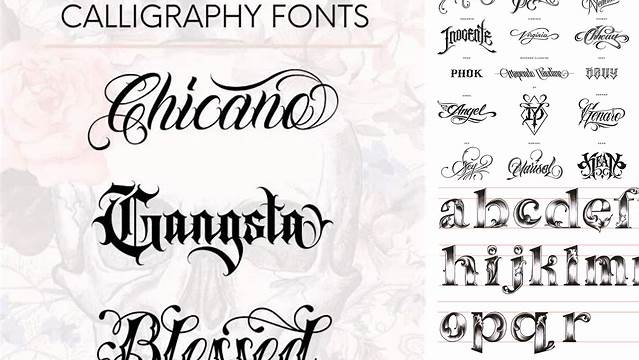
Tattoo Fonts: A Guide To Unique Lettering Styles
Hey guys! Getting a tattoo is a big decision, and choosing the right font is just as important as the design itself. The font you pick can totally change the vibe of your tattoo, so let’s dive into the awesome world of tattoo fonts and explore the different styles you can use to make your ink truly unique. Whether you're into classic scripts, bold statements, or something totally out-there, this guide will help you find the perfect lettering for your next piece of body art. Let’s get started!
Why Tattoo Fonts Matter
When we talk about tattoo fonts, we're not just discussing how the letters look; we're delving into the very essence of how your message is conveyed. Think of it this way: the words you choose are the heart of your tattoo, but the font is the voice in which those words are spoken. A delicate script font might whisper elegance and grace, while a bold, gothic typeface could shout strength and defiance. The font is the unsung hero, adding layers of meaning and emotion to your tattoo. So, why do tattoo fonts matter so much? They're the key to making your ink truly speak your language.
Choosing the right tattoo font is crucial because it dramatically affects the overall impact and readability of your design. Imagine having a powerful message rendered in a font that's too dainty or illegible – the impact is lost, right? Similarly, a meaningful quote in a generic, overused font might not stand out as much as it should. The right font enhances the message, making it visually appealing and easy to read. Think about it: you want people to be able to appreciate your tattoo from a distance and up close, and the font plays a massive role in achieving that. A well-chosen font ensures your tattoo remains timeless and impactful, truly reflecting your personality and style.
Furthermore, different tattoo fonts evoke different emotions and associations. A classic script font, like a flowing cursive, often brings to mind elegance, romance, and tradition. These fonts are perfect for quotes, names, or dates where you want to add a touch of sophistication. On the other hand, bold, blocky fonts can convey strength, stability, and a no-nonsense attitude. These are ideal for impactful words or phrases that you want to stand out. Then there are the more artistic fonts, like those inspired by calligraphy or graffiti, which can add a unique and edgy touch. The font you select becomes a visual cue to the viewer, setting the tone and mood of your tattoo. It’s not just about what the tattoo says; it’s about how it says it. Ultimately, the font acts as a visual amplifier, ensuring your tattoo communicates exactly what you intend.
Popular Tattoo Font Styles
Okay, let's get into the exciting part – the fonts themselves! There's a massive range of tattoo font styles out there, each with its own unique vibe and history. Knowing the popular styles can help you narrow down your choices and find something that perfectly matches your personality and the message you want to convey. Whether you're into the classics or something more modern and edgy, we've got you covered.
Script Fonts
First up, we have script fonts. These are your elegant, flowing fonts, often resembling handwriting or calligraphy. They're super popular for tattoos because they add a touch of sophistication and grace. Think swirling lines, elegant loops, and a generally fancy feel. Script fonts are perfect for names, quotes, or anything where you want to convey a sense of timeless beauty. Script fonts can range from very ornate and decorative to more simple and clean, giving you plenty of options to play with.
Within the script category, there are sub-styles like cursive, Spencerian, and Old English scripts. Cursive fonts are your everyday handwriting styles, easy to read and effortlessly stylish. Spencerian scripts are more elaborate, with flourishes and intricate details, often used for a vintage or formal look. Old English scripts, with their bold, dramatic strokes, bring a classic, almost medieval feel. When choosing a script font, consider how easily it can be read and how well it will hold up over time. Too many fine details can blur as the tattoo ages, so sometimes simpler is better. But when done right, a script font can be an absolutely stunning addition to your ink.
Gothic Fonts
Next, let's talk about gothic fonts. These fonts are bold, dramatic, and a little bit edgy. Gothic fonts often feature sharp angles, thick lines, and a somewhat medieval or old-world aesthetic. They're perfect for making a statement, conveying strength, or adding a touch of mystery to your tattoo. If you want your tattoo to stand out and have a strong visual impact, gothic is a fantastic choice. Think of them as the rockstars of the font world – bold, unapologetic, and totally cool.
Gothic fonts draw inspiration from historical blackletter typefaces, which were commonly used in medieval manuscripts and printed materials. This historical connection gives gothic fonts a sense of authority and tradition, while their bold appearance makes them feel modern and powerful. They work exceptionally well for single words or short phrases, where their dramatic style can really shine. However, they can become difficult to read if used for long passages of text, so keep that in mind. Whether you're going for a dark, edgy vibe or a classic, timeless feel, gothic fonts can add a unique and striking element to your tattoo.
Block Letter Fonts
Now, let's chat about block letter fonts. These are your straightforward, no-nonsense fonts, characterized by their clean lines and solid shapes. Block letters are all about readability and making a clear, bold statement. Think of them as the reliable workhorses of the font family – they get the job done efficiently and effectively. They're incredibly versatile and can work well for a variety of tattoo styles and placements. Block letter fonts are a solid choice if you want something that’s easy to read and impactful.
Block letter fonts are perfect for situations where clarity is key. Whether you’re tattooing a date, initials, or a short quote, block letters ensure your message is easily understood at a glance. They come in a range of styles, from simple, unadorned letters to more stylized and modern variations. Some block letters have rounded edges for a softer feel, while others feature sharp corners for a more industrial look. This versatility makes block letters a great option for those who want a font that is both timeless and contemporary. Plus, they work exceptionally well in both small and large sizes, making them ideal for a variety of tattoo placements. Overall, block letter fonts are a dependable choice for anyone looking for a font that is both functional and visually appealing.
Calligraphy Fonts
Let’s dive into the world of calligraphy fonts, which are all about artistry and elegance. Calligraphy fonts mimic the beautiful strokes of hand-lettered calligraphy, bringing a sense of sophistication and craftsmanship to your tattoo. Calligraphy fonts often feature flowing lines, graceful curves, and a touch of artistic flair, making them perfect for those who appreciate the beauty of fine writing. They add a personal and unique touch to your ink, making your tattoo feel like a true work of art.
Calligraphy fonts are incredibly versatile, ranging from traditional scripts that evoke historical documents to modern interpretations with a contemporary edge. Whether you’re looking for something ornate and elaborate or clean and minimalist, there’s a calligraphy style to suit your taste. These fonts are ideal for quotes, names, and meaningful phrases, adding a touch of elegance and personality to your message. Calligraphy fonts can also be combined with other design elements, such as floral motifs or geometric shapes, to create a truly unique and eye-catching tattoo. When choosing a calligraphy font, consider the size and placement of your tattoo, as intricate details may become less visible in smaller sizes. But when done right, a calligraphy font can transform your tattoo into a stunning piece of wearable art.
Unique and Custom Fonts
For those who want to really stand out, unique and custom fonts are the way to go. Unique and custom fonts offer a chance to express your individuality and creativity, setting your tattoo apart from the rest. These fonts can range from hand-drawn styles to artistic interpretations of classic typefaces, allowing you to create a tattoo that is truly one-of-a-kind. If you have a specific vision in mind or want a font that perfectly complements your design, exploring unique and custom options is a must.
Custom fonts can be designed from scratch or modified from existing typefaces, giving you endless possibilities to explore. Whether you’re inspired by a particular era, culture, or artistic style, a custom font can capture the essence of your vision. These fonts are perfect for adding a personal touch to your tattoo, making it a true reflection of your personality and style. Working with a talented tattoo artist or a font designer can help you bring your ideas to life, ensuring your custom font is both visually stunning and technically sound. Unique and custom fonts are not just about aesthetics; they’re about creating a tattoo that tells your story in a way that no other font can. So, if you’re looking for something truly special, don’t be afraid to venture off the beaten path and explore the world of custom lettering.
Tips for Choosing the Right Tattoo Font
Okay, now that we've explored a bunch of different font styles, let's talk about how to actually pick the right one for your tattoo. Choosing a tattoo font can feel like a big decision, but don't worry, guys! We've got some awesome tips to help you nail it. Think of it like this: the perfect font is out there, and we're going to help you find it.
Consider the Tattoo's Meaning and Style
First and foremost, think about the meaning and style of your tattoo. What message are you trying to convey? What kind of vibe are you going for? The font should complement the overall design and enhance its meaning. If you're getting a tattoo with a powerful, strong message, a bold gothic or block letter font might be perfect. For something more delicate and sentimental, a script or calligraphy font could be the way to go. Consider the tattoo’s meaning to guide your font selection.
The style of your tattoo also plays a crucial role in font selection. Is your tattoo a traditional piece with bold lines and classic imagery? A classic font style, like Old English or a traditional script, might be a great fit. If your tattoo is more modern and minimalist, a clean sans-serif font or a contemporary calligraphy style could be a better choice. Think about how the font will integrate with the other elements of your design. Will it enhance the overall aesthetic or clash with it? The key is to find a font that feels like it naturally belongs with the rest of your tattoo, creating a cohesive and visually appealing piece of art. Ultimately, the font should be a seamless extension of your tattoo’s meaning and style, bringing your vision to life in the most impactful way.
Ensure Readability
Next up, readability is key. There's no point in getting a beautiful font if nobody can actually read it! Ensure readability by choosing a font that is clear and legible, even from a distance. Avoid fonts that are too intricate or have overly thin lines, as these can become blurry over time. Remember, tattoos age, and a font that looks great today might not look so great in a few years if it's not easily readable.
Readability is especially important for tattoos with longer words or phrases. Intricate fonts with lots of flourishes and embellishments might look stunning at first glance, but they can quickly become a jumbled mess, especially in smaller sizes. A good rule of thumb is to choose a font that maintains its clarity and shape, even when scaled down. Think about the placement of your tattoo as well. Areas of the body that stretch and move a lot, like the wrist or fingers, can cause the ink to spread over time. This is another reason to opt for a font that is clean and simple, ensuring your tattoo remains legible for years to come. Ultimately, the goal is to create a tattoo that is both beautiful and functional, and readability is a critical component of that.
Think About Longevity
Speaking of time, longevity is another big factor. Some fonts age better than others, so you want to choose something that will still look awesome years down the line. Think about longevity by avoiding super trendy fonts that might look dated in the future. Classic fonts are classic for a reason – they stand the test of time. Also, consider the size and placement of your tattoo, as these can affect how the font holds up over the years.
Tattoos are an investment, and you want your ink to look as good as possible for as long as possible. This means choosing a font that is not only visually appealing but also structurally sound. Fonts with thick, solid lines tend to age better than those with very fine lines or delicate details. As the tattoo ink settles and spreads over time, these finer details can fade or blur, making the font look less crisp. Similarly, fonts with a lot of negative space or intricate swirls may lose their definition over the years. Classic fonts, like block letters or simple scripts, are designed to be timeless and are less likely to fall out of favor or lose their visual impact. By choosing a font that is both classic and well-suited to the size and placement of your tattoo, you can ensure your ink remains a stunning piece of art for years to come. Longevity is not just about the font itself; it’s about making a smart choice that honors your commitment to your body art.
Test Different Fonts and Sizes
Before you commit, test different fonts and sizes. Most tattoo artists have software or tools that allow you to preview how the font will look on your skin. Take advantage of this! Test different fonts and sizes to see what looks best with your design and placement. You might be surprised at how different a font can look on paper versus on your body.
Testing different fonts and sizes is a crucial step in the tattoo design process. A font that looks amazing on a computer screen might not translate well to skin, and the size of the font can significantly impact its readability and overall appearance. By using tattoo design software or working closely with your tattoo artist, you can experiment with different options and see how they fit within your chosen design. This allows you to make informed decisions and avoid any potential regrets down the line. Consider printing out a few test designs in different sizes and holding them up to your skin to get a better sense of how they will look in real life. This hands-on approach can help you visualize the final product and ensure you’re completely happy with your font choice. Ultimately, testing different fonts and sizes is about ensuring your tattoo looks its absolute best, so don’t skip this important step!
Consult with Your Tattoo Artist
Last but not least, consult with your tattoo artist. They're the experts, after all! Consult with your tattoo artist about what fonts work well, what sizes are appropriate, and how the font will hold up over time. They can offer valuable insights and suggestions based on their experience, helping you make the best choice for your tattoo.
Your tattoo artist is a wealth of knowledge when it comes to font selection. They have seen firsthand how different fonts heal and age on the skin, and they can provide valuable advice based on their experience. Don’t hesitate to ask them for their recommendations and to show you examples of their previous work with different fonts. They can also help you understand the technical aspects of tattooing, such as ink spread and how certain fonts may require more maintenance than others. Your tattoo artist wants you to be thrilled with your tattoo, so they’re more than happy to guide you through the font selection process. By collaborating with them, you can ensure your tattoo is not only visually stunning but also a piece of art that will stand the test of time. Consulting with your tattoo artist is a crucial step in creating a tattoo you’ll love for years to come, so take advantage of their expertise and let them help you make the perfect choice.
So, there you have it, guys! Choosing the right tattoo font is a super important part of getting inked. It’s not just about picking something that looks cool; it's about making sure your tattoo reflects your personality, conveys the right message, and looks awesome for years to come. Take your time, explore different styles, and don't be afraid to ask for help. With the right font, your tattoo will be a true masterpiece! Happy inking!